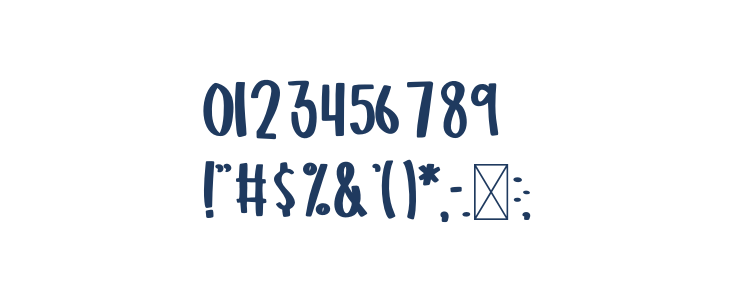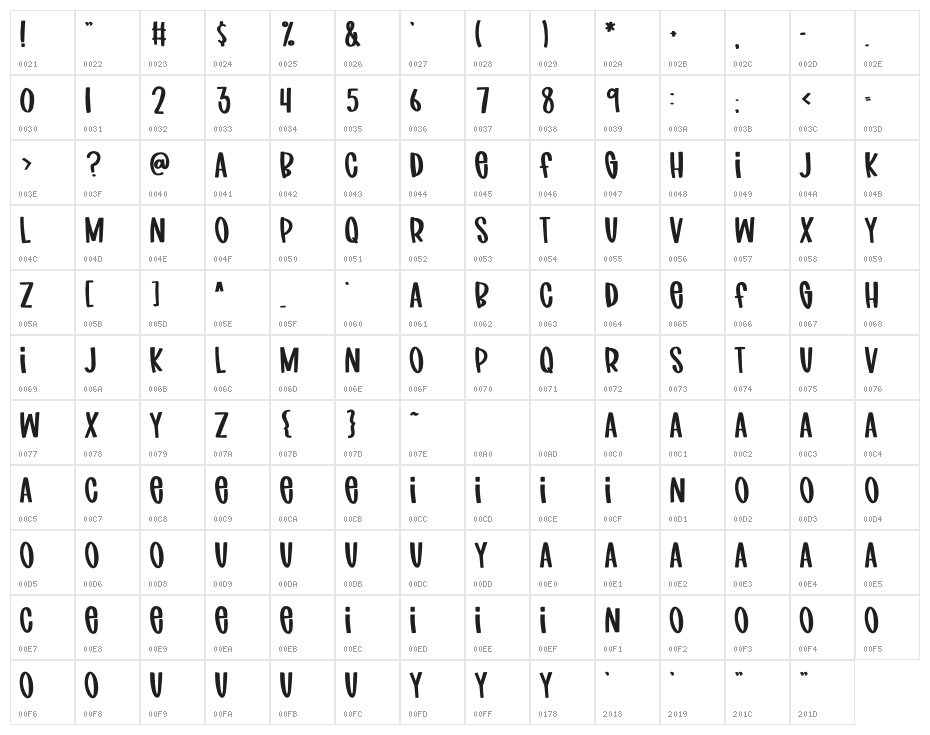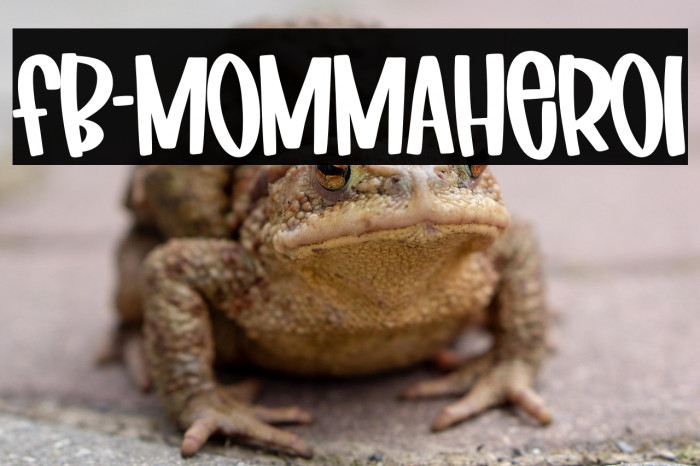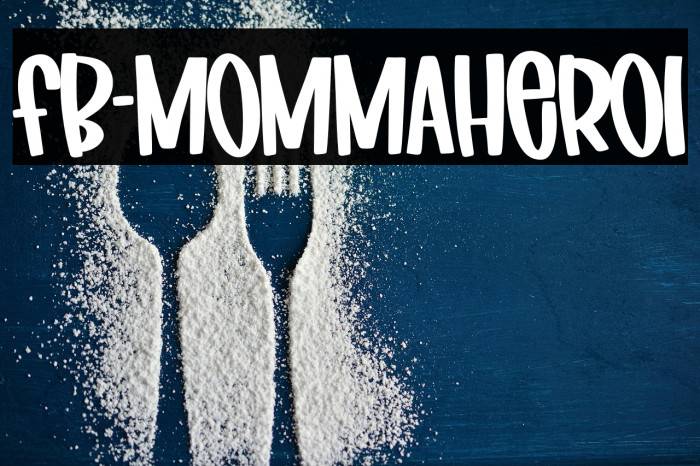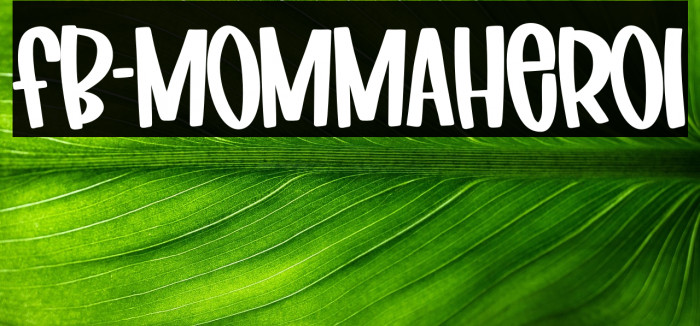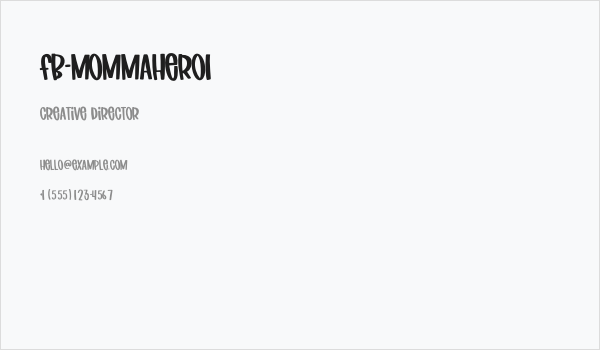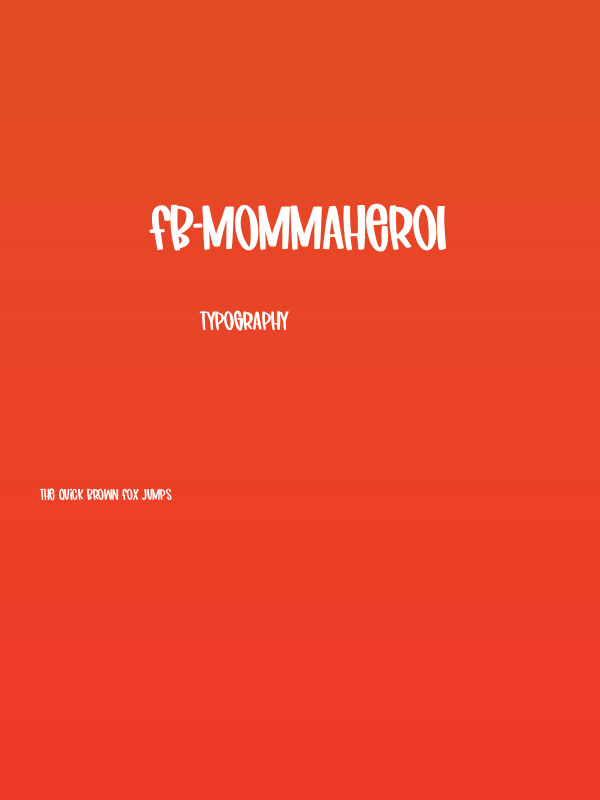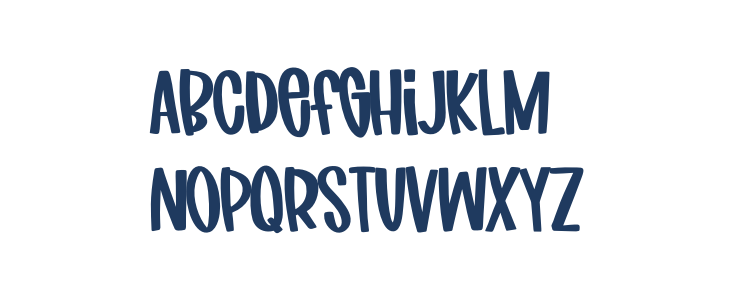
FB-MommaHero1 Font
FB-MommaHero1 Description
This font features a playful and bold handwritten style, characterized by its thick strokes and slightly irregular letterforms that give it a casual and friendly appearance. The uppercase and lowercase letters are designed with a consistent stroke weight, contributing to its bold presence. The numbers and special characters maintain the same playful aesthetic, making it versatile for various creative projects. Its informal style is perfect for designs that require a personal touch, such as invitations, posters, or social media graphics. The font's unique charm lies in its ability to convey warmth and approachability, making it suitable for both children and adult audiences.
| Overall Style | Playful, Casual |
| Proposed Projects | Ideal for invitations, posters, social media graphics, and any design needing a personal, friendly touch. |